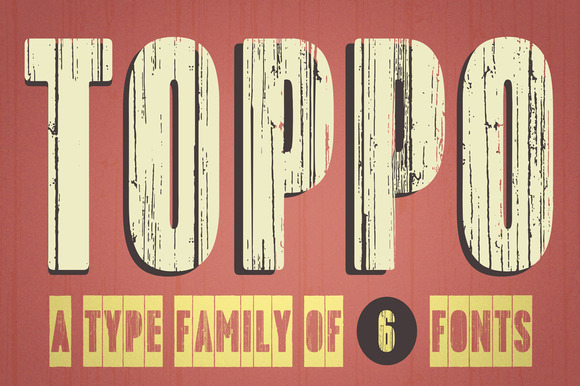
Introducing the Toppo Font Family: Where Classic Elegance Meets Modern Versatility
Step into a world of typographic enchantment, where classic design and modern sensibilities harmoniously intertwine. The Toppo Font Family, meticulously crafted by Blazej Ostoja Lniski of the renowned Typoforge foundry, is not just a collection of fonts; it's a gateway to a world of design possibilities that will ignite your creativity and elevate your projects to new heights.
Drawing inspiration from the iconic "You and Me" magazine, published in Poland from 1960 to 1973, the Toppo Font Family embodies the essence of timeless elegance with a touch of contemporary flair. This small but mighty font family consists of four distinct fonts—Toppo Regular, Toppo Stencil, Toppo Frame, and Toppo Negative—each with its unique personality and purpose.
Whether you're a designer, a marketer, or simply a lover of typography, the Toppo Font Family is your passport to create designs that captivate, communicate, and inspire. Experience the allure of sophistication, the allure of uniqueness, and the boundless potential to make your creative visions a reality.